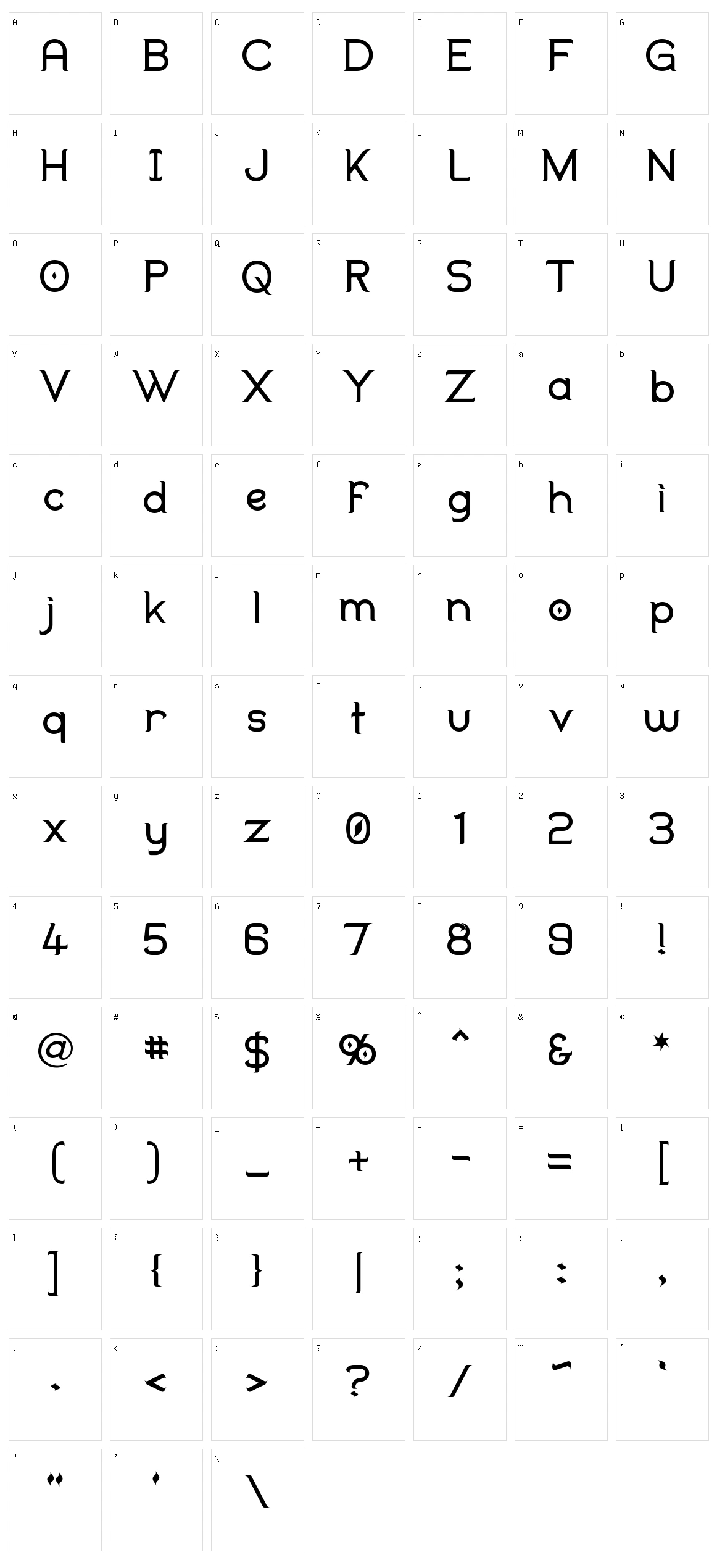
Duralith
If they had space movies in the 1850s, their titling would have looked something like Duralith. Then again, If they had space movies in the 1850s, there would have been computers by 1890 and right now people would be complaining about how botched up their cloning operations were.